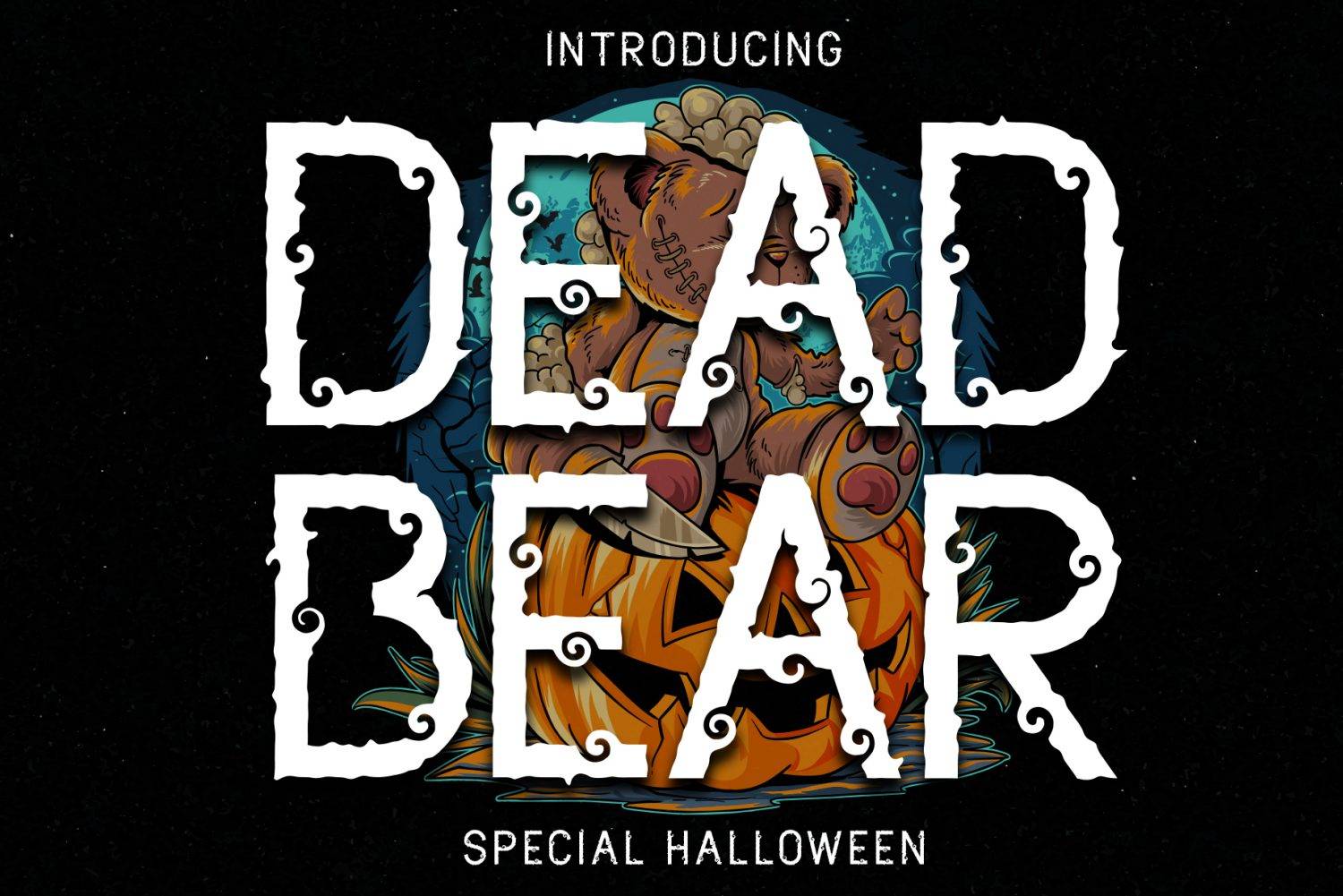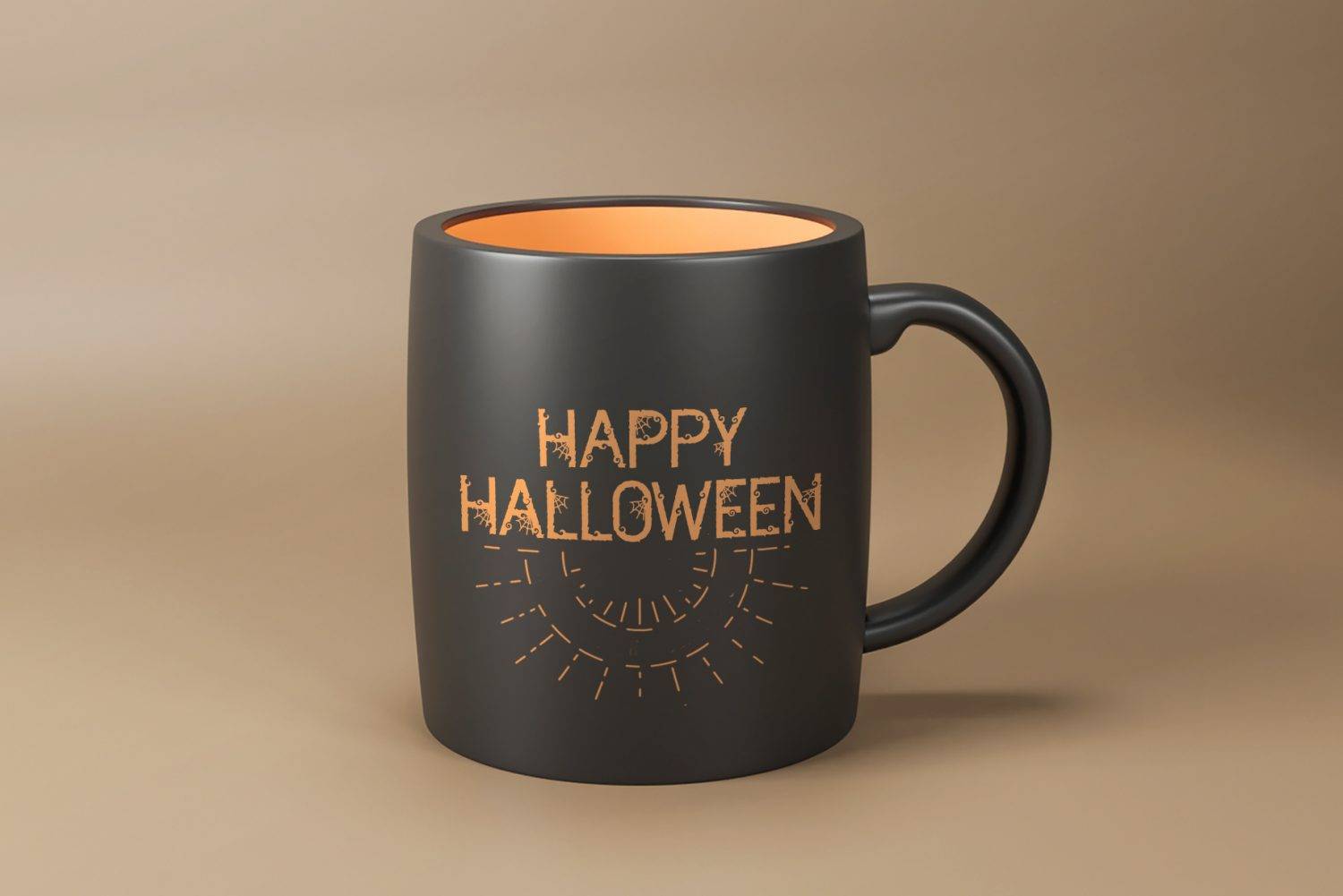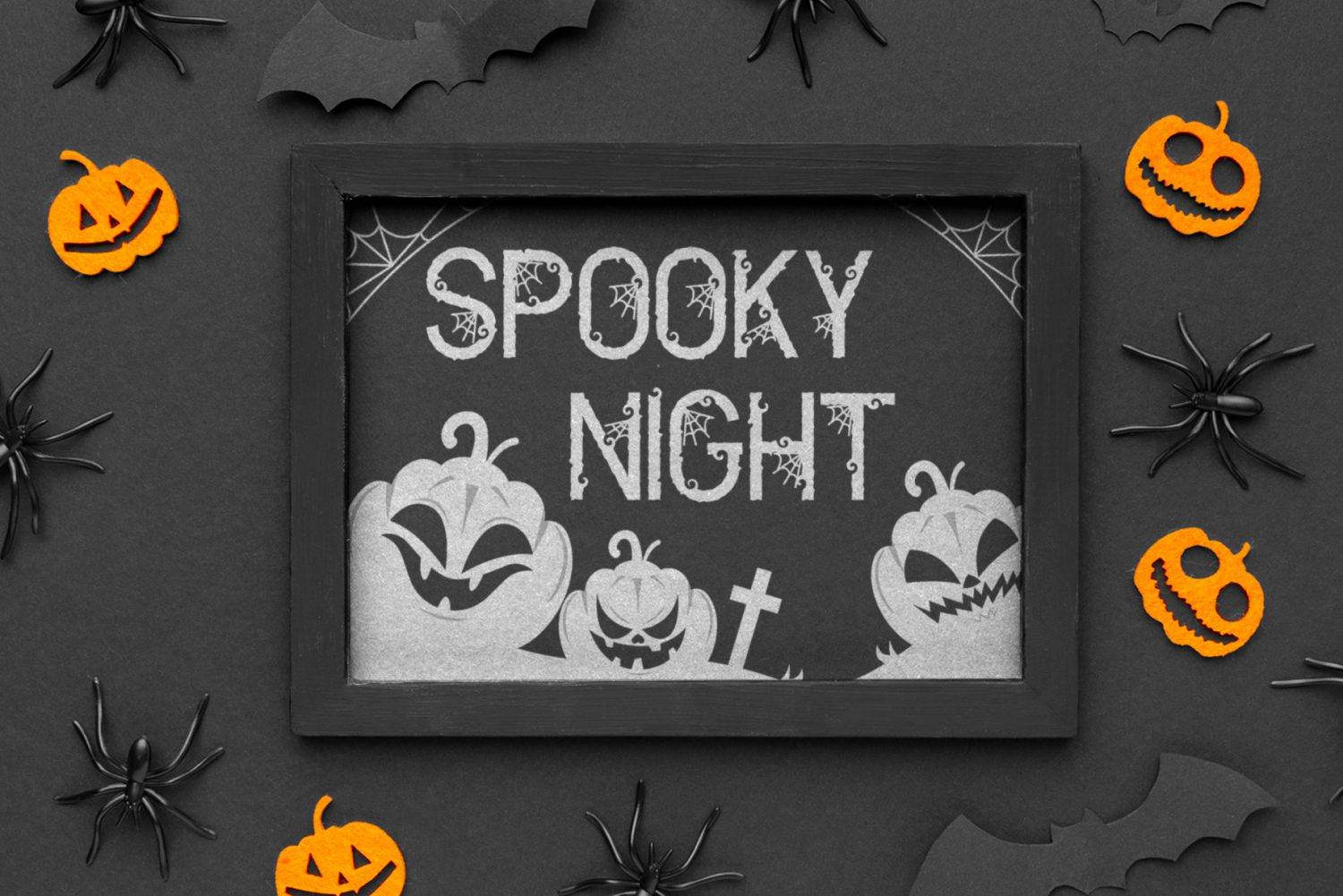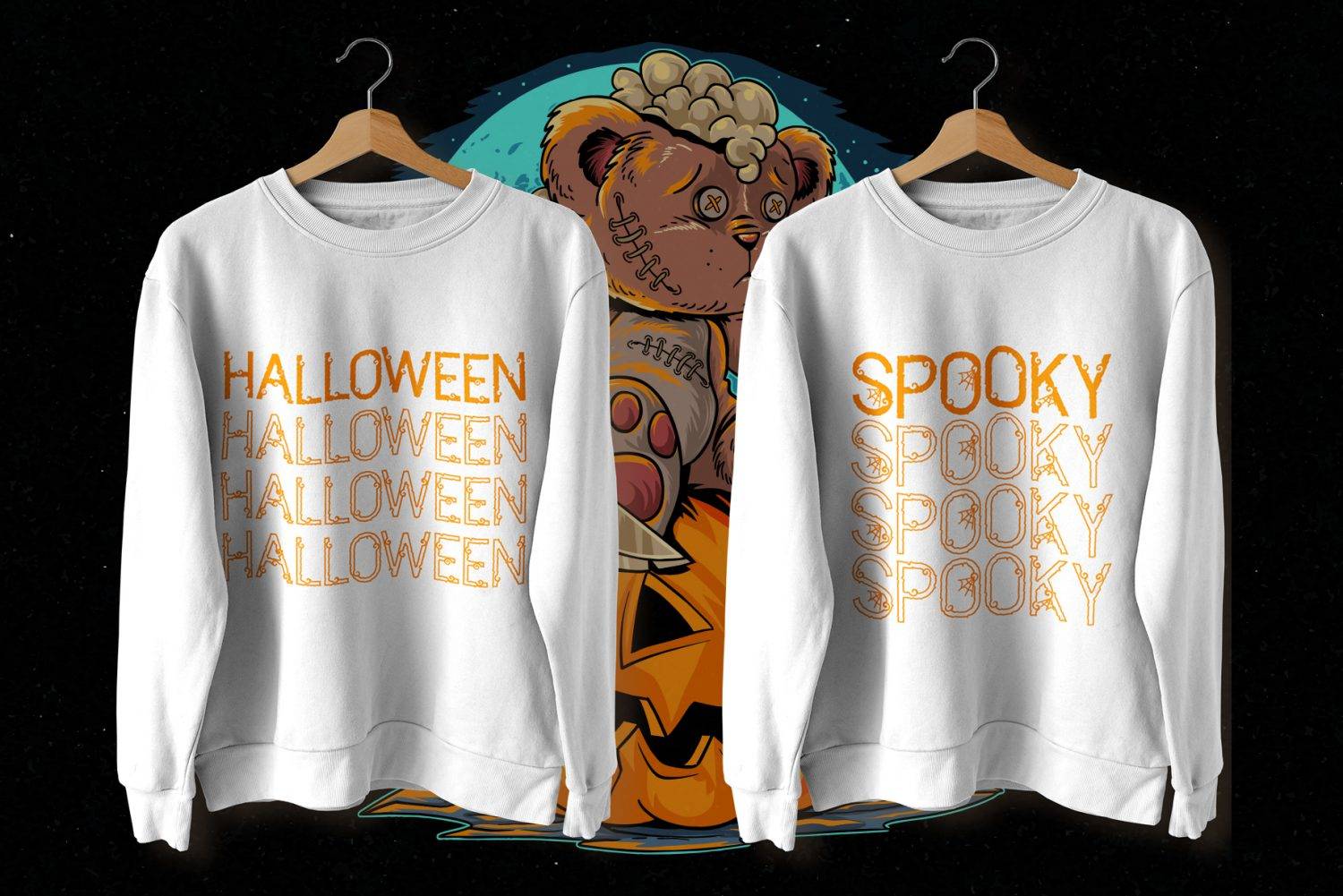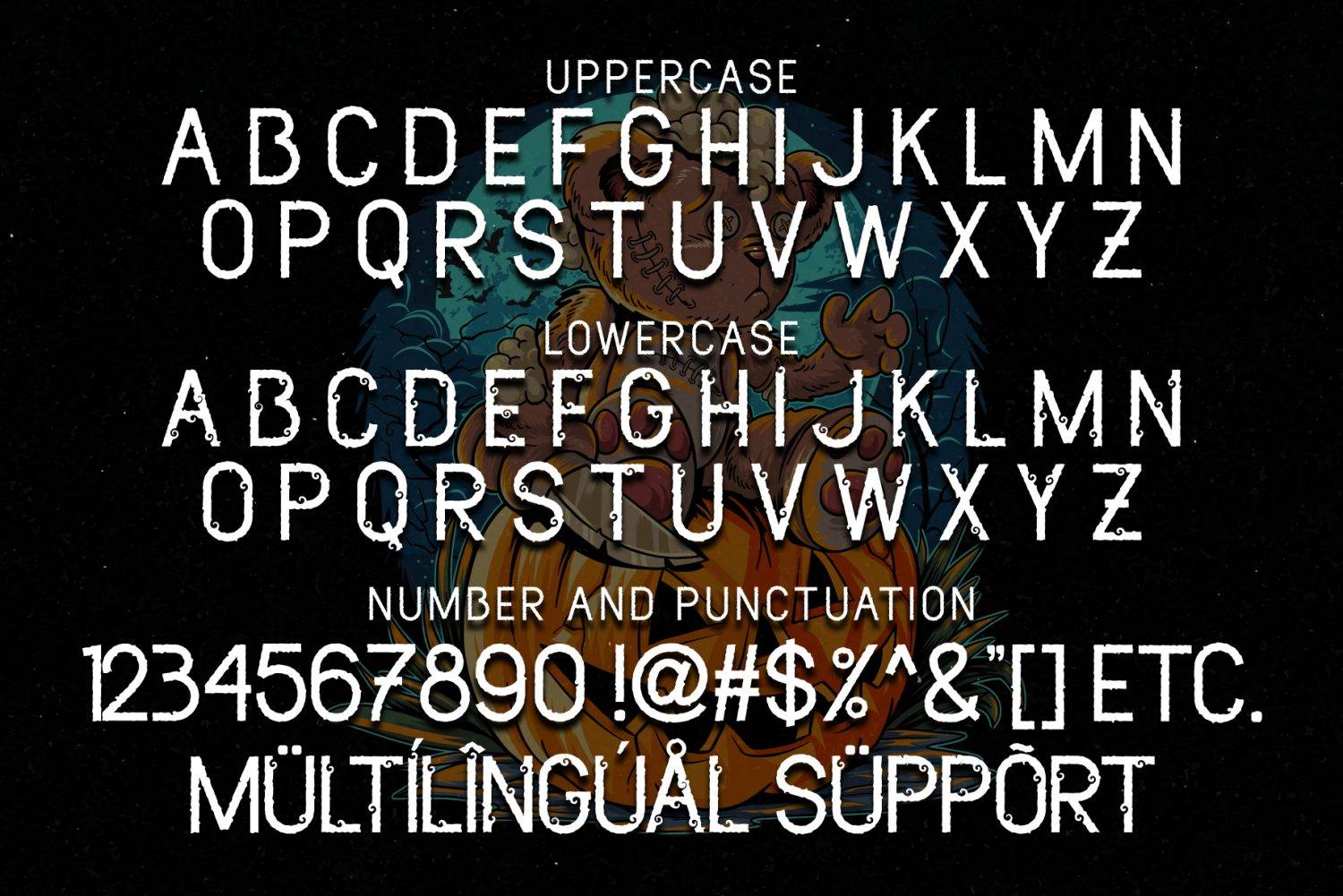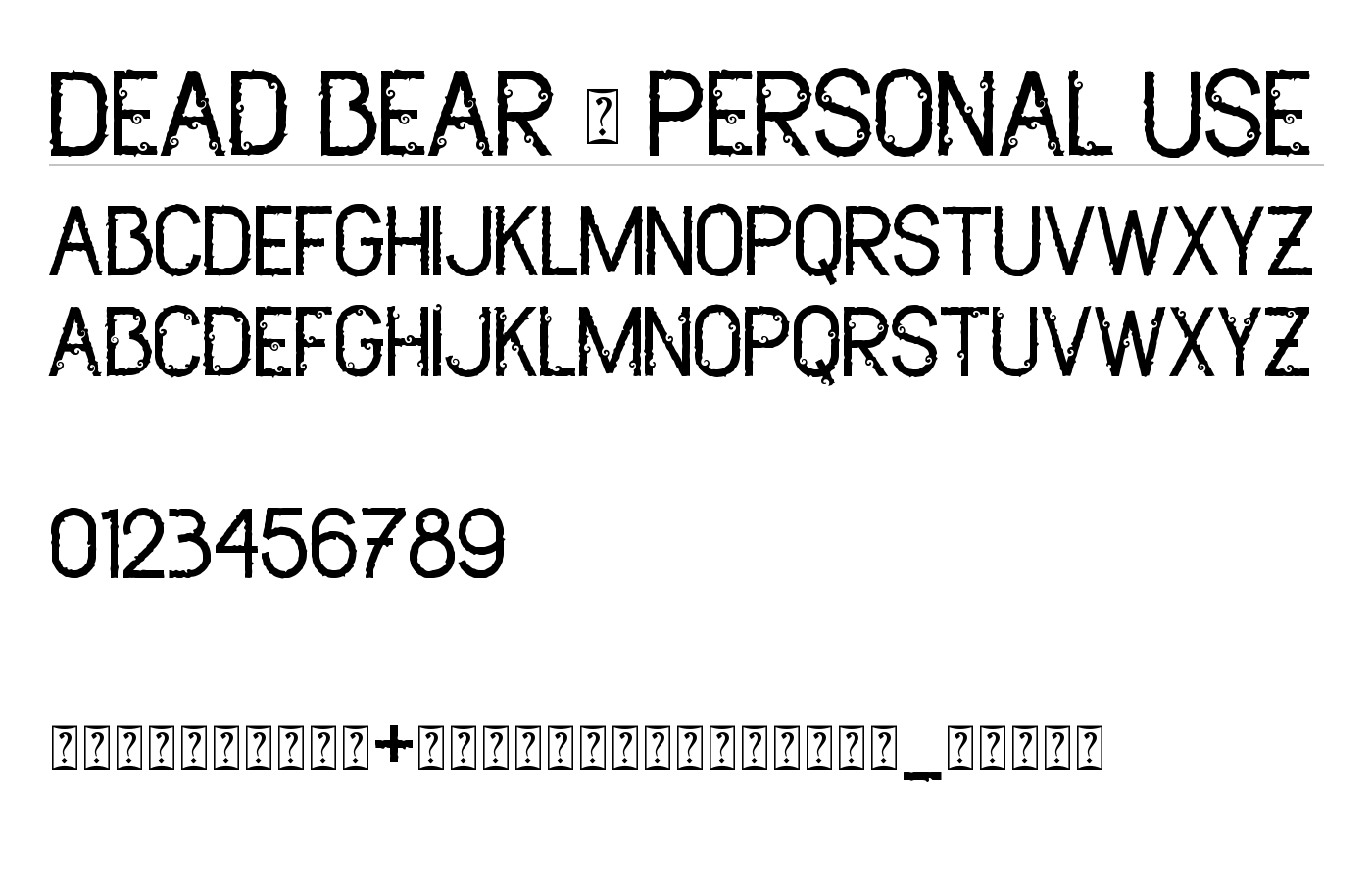
Dead Bear is a distressed, decorative sans serif font with a rough, worn texture that gives it a rugged and edgy character. Its uppercase letterforms feature uneven edges and quirky details, creating a vintage, grunge feel that is perfect for bold headlines, posters, or branding with a rebellious or rustic vibe. This font works well for designs looking to convey toughness and individuality with a handcrafted, imperfect charm.
Dead Bear Font